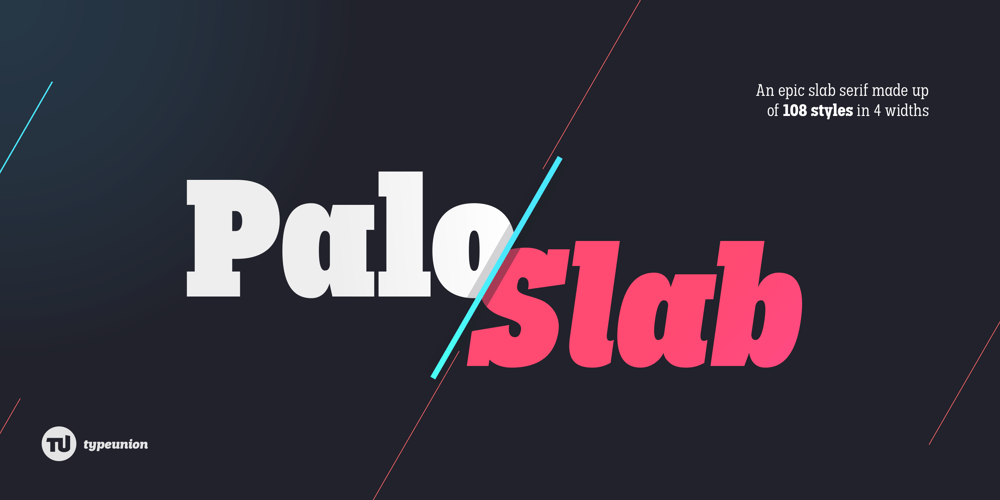
Palo Slab
Palo Slab font
Palo Slab Font Family was designed by Dan Jones and published by TypeUnion. Palo Slab contains 108 styles and family package options. Palo Slab is an epic font family made up of 9 weights in four widths, along with italic & oblique options to total a massive 108 styles. Using our 2020 release Palo as the base, the slab version began to take on its own life and personality to become a unique entity in its own right. From super punchy heavy weights to the delicate lighter weights, the Palo Slab super family is a versatile beast that offers you ultimate flexibility.The heavy weights ranging from Compressed Black to Wide Black are built with super tight spacing and love to be big and bold, so perfect for showing off your brand. The Italic styles add curves to the slab feel, providing a beautiful flow, but we’ve also included an oblique option if you want to use the blockier version.Palo Slab features extensive latin language support as well as OpenType features such as case sensitive punctuation, old style figures, scientific numbers and ligatures, + arrows.You can check out our 2020 release Palo here.